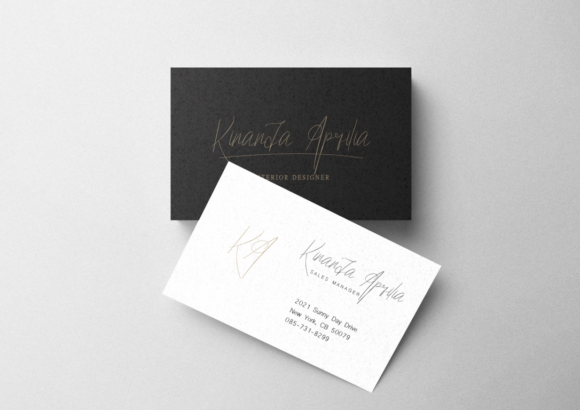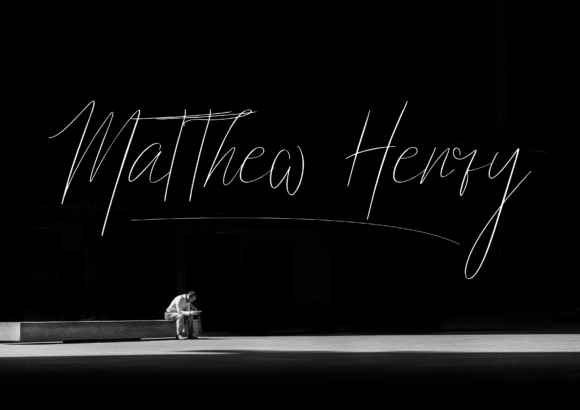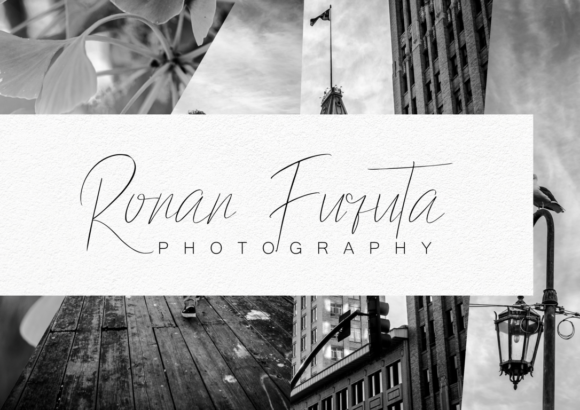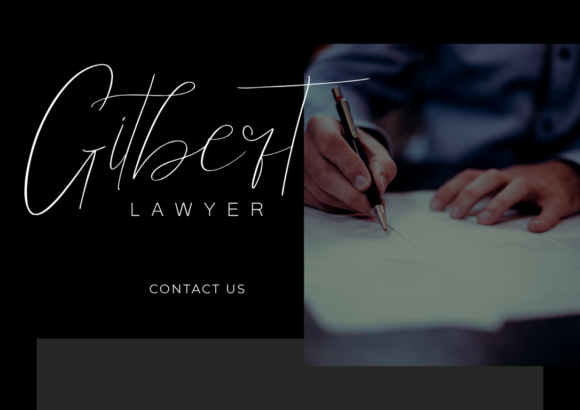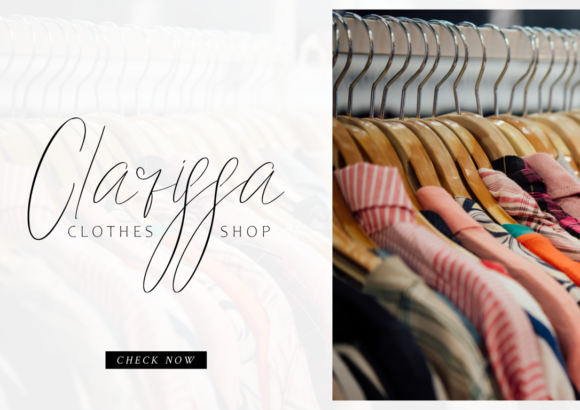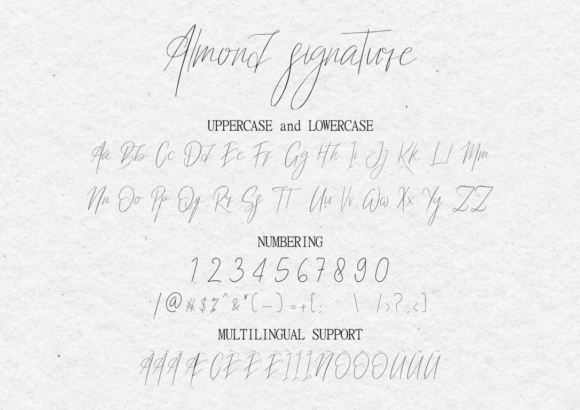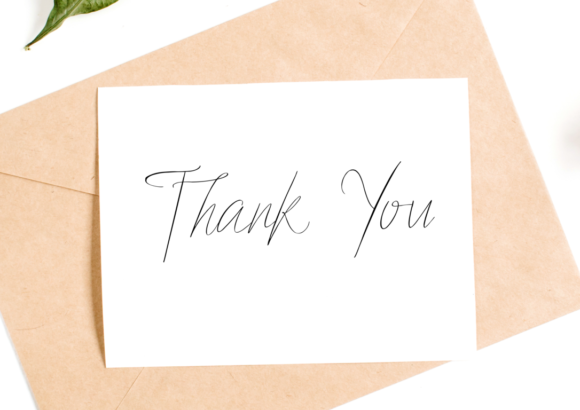
Almond Signature Font
About Almond Signature Font
Almond Signature is a stylish and delicate script font. It has a clean, thin and smooth vibe and it will be a hit for any project that you want to add it to.
Fall for its ravishing style and use it to create gorgeous designs.